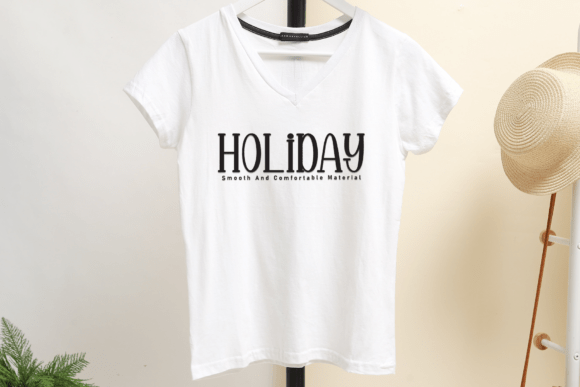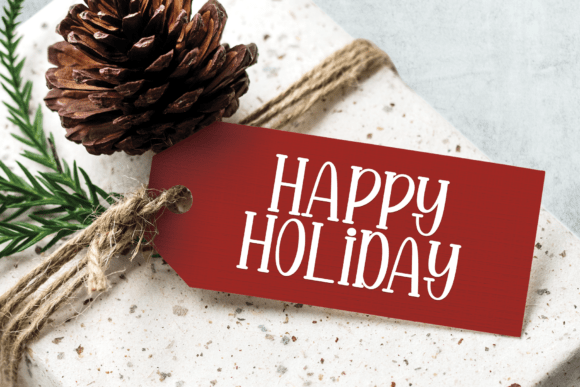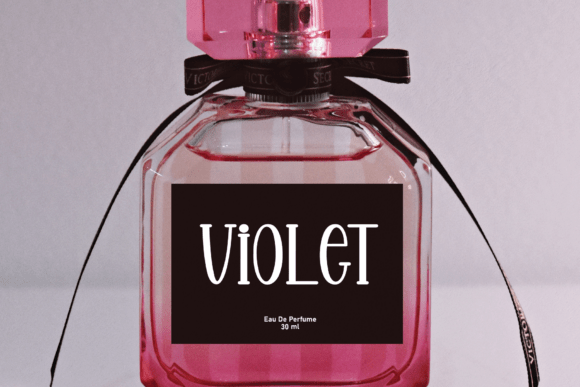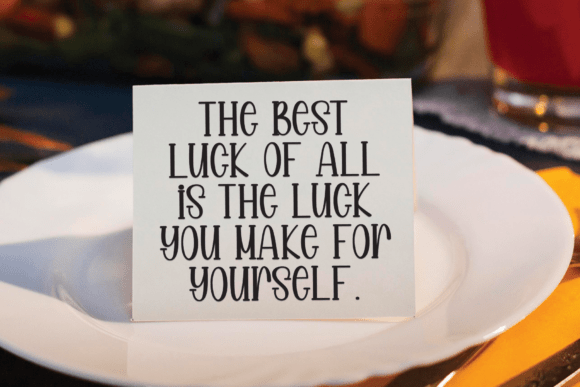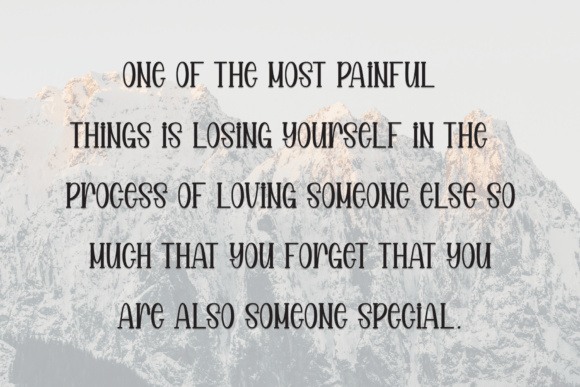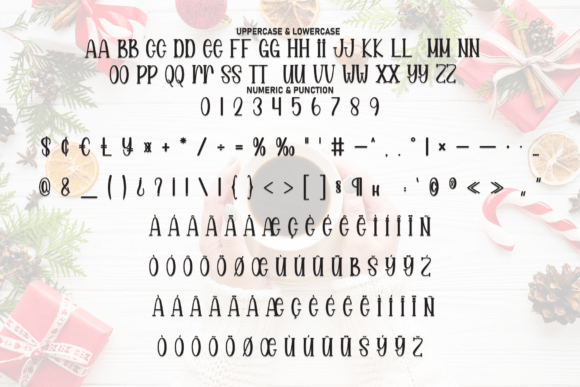
Introducing Christmas Wednesday Font: The Perfect Blend of Simplicity and Warmth
Are you looking for a font that can add a touch of modern elegance and friendliness to your designs? Look no further than the Christmas Wednesday Font. This casual and neat display font is designed to combine simplicity with a friendly, approachable vibe, making it perfect for a wide range of design applications.
Clean Lines, Balanced Letterforms, and Subtle Rounded Edges
One of the standout features of the Christmas Wednesday Font is its clean lines, balanced letterforms, and subtle rounded edges. These design elements work together to create a font that captures the essence of modern handwritten typography with a polished finish. The clean lines and balanced letterforms ensure that the font is highly legible, even at smaller sizes, while the subtle rounded edges add a touch of warmth and friendliness.
Ideal for Branding, Headlines, Packaging, and Digital Content
The Christmas Wednesday Font is an incredibly versatile font that can be used in a wide range of design applications. It’s ideal for branding, headlines, packaging, and digital content, and can add a warm and inviting touch to any design. Whether you’re creating a logo, brochure, or social media post, this font is sure to make your design stand out.
Key Features of Christmas Wednesday Font
- Clean and Simple Design: The Christmas Wednesday Font features a clean and simple design that makes it highly legible and versatile.
- Balanced Letterforms: The font’s balanced letterforms ensure that it looks great in a wide range of design applications.
- Subtle Rounded Edges: The subtle rounded edges add a touch of warmth and friendliness to the font.
- Modern Handwritten Typography: The font captures the essence of modern handwritten typography with a polished finish.
- Highly Legible: The font is highly legible, even at smaller sizes.
Benefits of Using Christmas Wednesday Font
There are many benefits to using the Christmas Wednesday Font in your designs. Some of the key benefits include:
- Unique and Memorable: The font’s unique and memorable design makes it perfect for branding and headlines.
- Versatile: The font is highly versatile and can be used in a wide range of design applications.
- Easy to Read: The font is highly legible and easy to read, making it perfect for digital content.
- Warm and Inviting: The font’s warm and inviting design makes it perfect for adding a touch of personality to your designs.
The Christmas Wednesday Font is a highly versatile and stylish font that’s perfect for designers and crafters looking to add a touch of modern elegance and friendliness to their designs. With its clean lines, balanced letterforms, and subtle rounded edges, this font is sure to make your design stand out. Whether you’re creating a logo, brochure, or social media post, the Christmas Wednesday Font is a great choice.